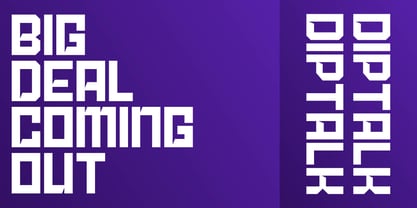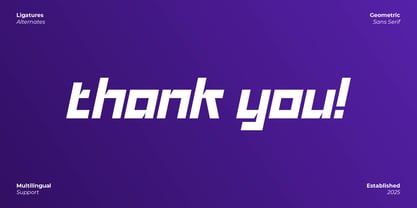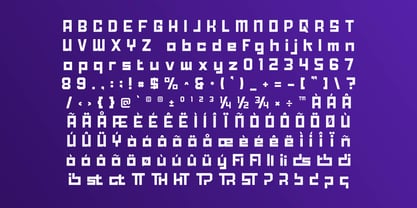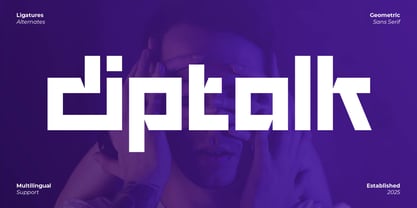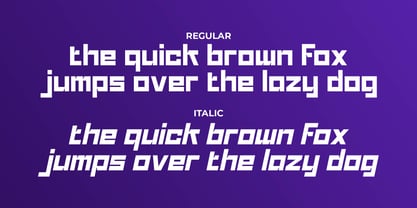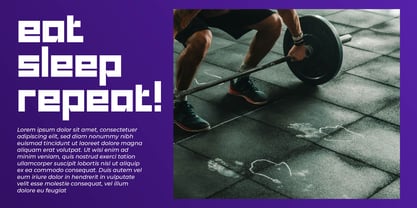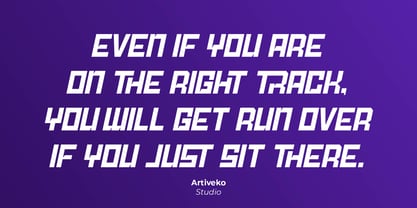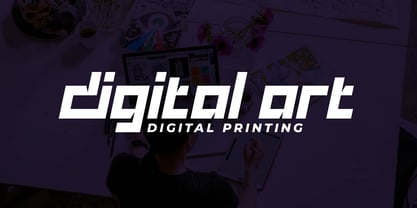
Diptalk
by Artiveko
The Diptalk Font Family was designed by Iwan Alwan and published by Artiveko. Diptalk contains 2 styles and family package options.
Diptalk is a geometric sans serif font crafted with precision and modern aesthetics. Its clean lines and balanced proportions make it perfect for branding, editorial design, digital projects, and corporate identities. With multilingual support, ligatures, and alternates, Diptalk delivers a sleek, contemporary look, making it an excellent choice for projects that require clarity, minimalism, and geometric harmony.
Designers: Iwan Alwan
Publisher: Artiveko
Foundry: Artiveko